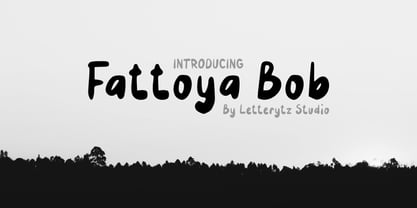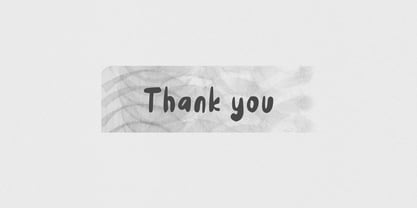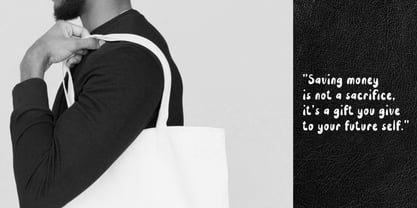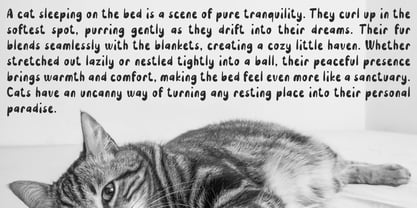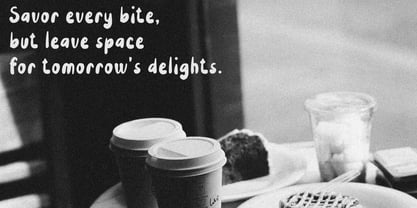
Fattoya Bob
by Letterytz CalliType
The Fattoya Bob Font Family was designed by Wahyu Eka Prasetya, Dian Angga Marytama and published by Letterytz CalliType. Fattoya Bob contains 2 styles and family package options.
Fattoya Bob – A Playful and Bold Handwritten Font
By Letterytz Studio
Fattoya Bob is a bold, playful, and effortlessly charming handwritten font that brings a touch of fun and authenticity to your designs. With its chunky strokes and smooth curves, this font exudes a casual yet confident personality, making it perfect for a variety of creative projects.
Ideal for branding, packaging, quotes, posters, social media, and more, Fattoya Bob stands out with its natural, slightly irregular flow, mimicking the warmth of hand-drawn lettering. Whether you're crafting eye-catching headlines, stylish logos, or engaging marketing materials, this font ensures a friendly and approachable aesthetic.
Features:
• Full set of uppercase & lowercase letters
• Numbers & punctuation
• Multilingual support
• 2 Styles Regular & Bold
Designers: Wahyu Eka Prasetya, Dian Angga Marytama
Publisher: Letterytz CalliType
Foundry: Letterytz CalliType
Design Owner: Letterytz CalliType